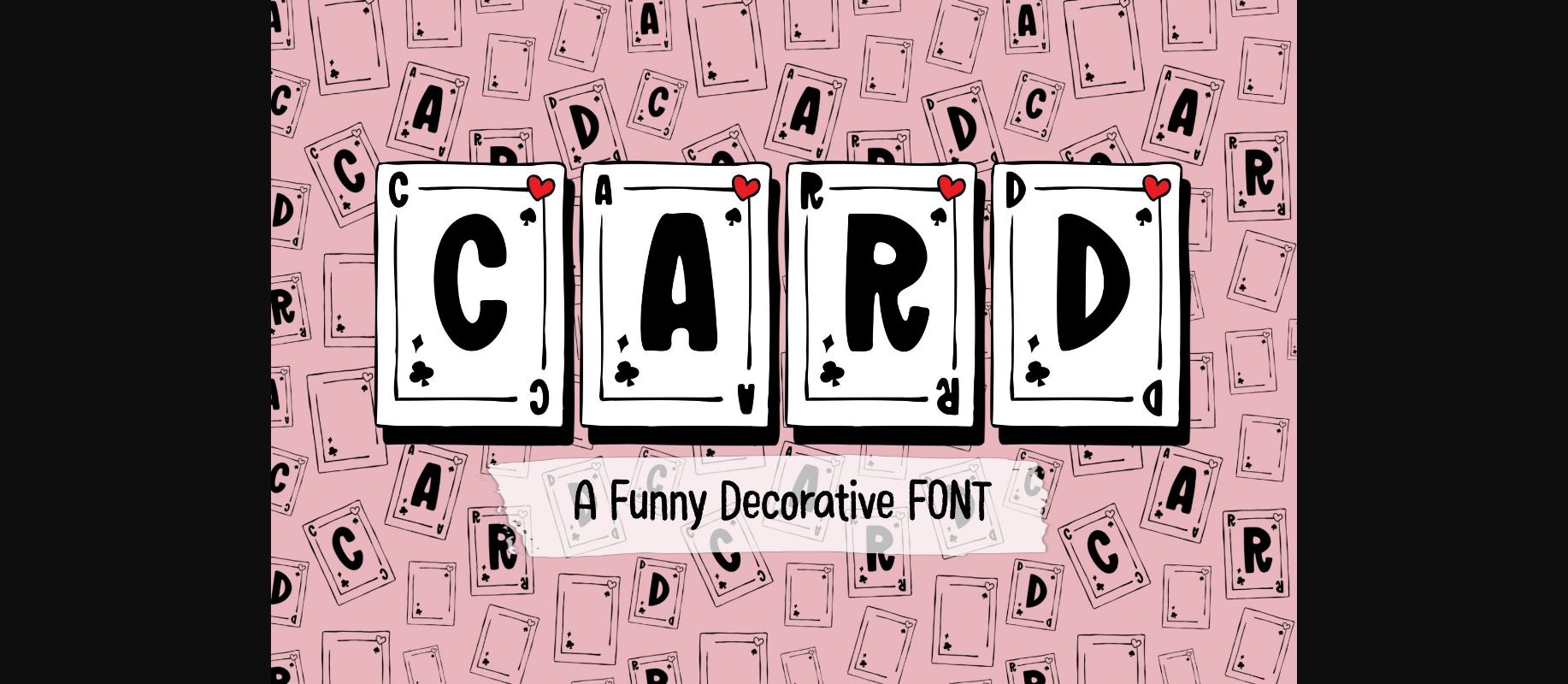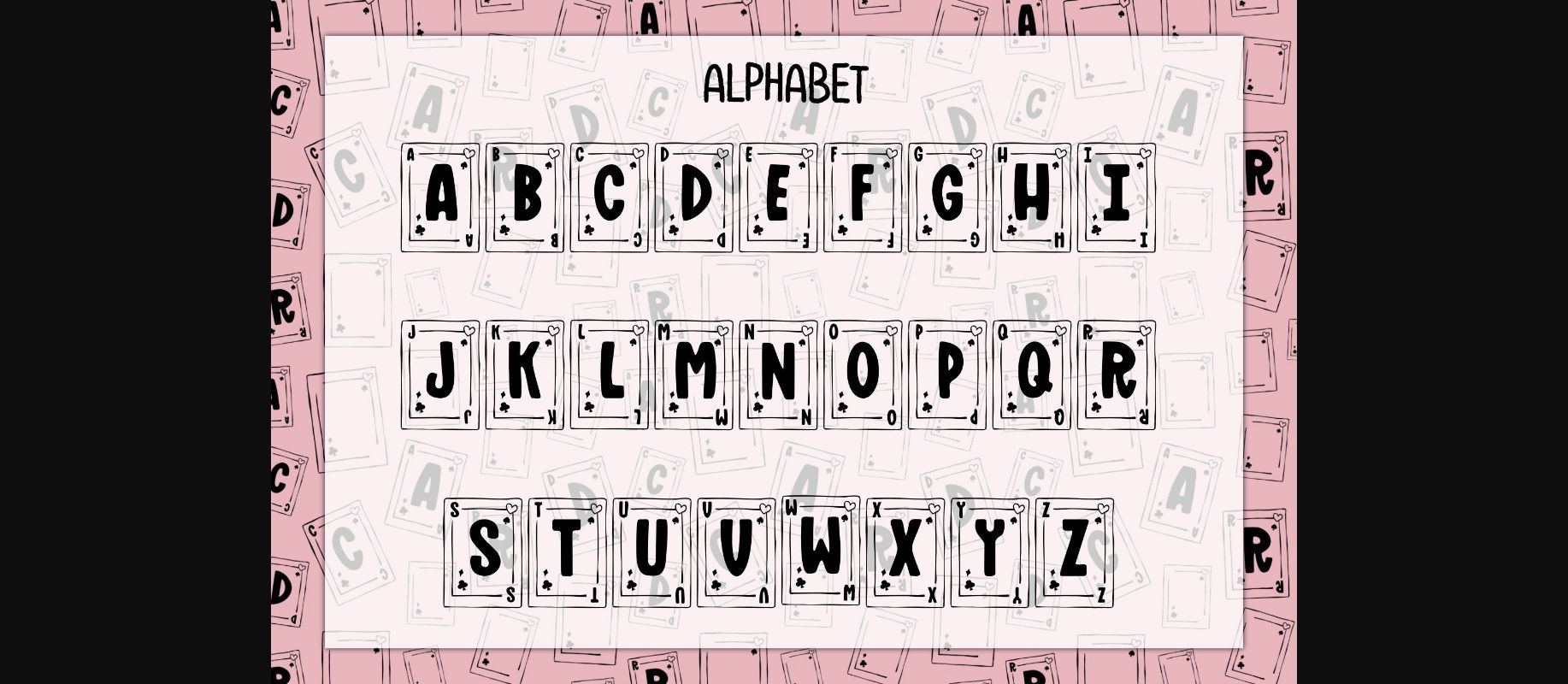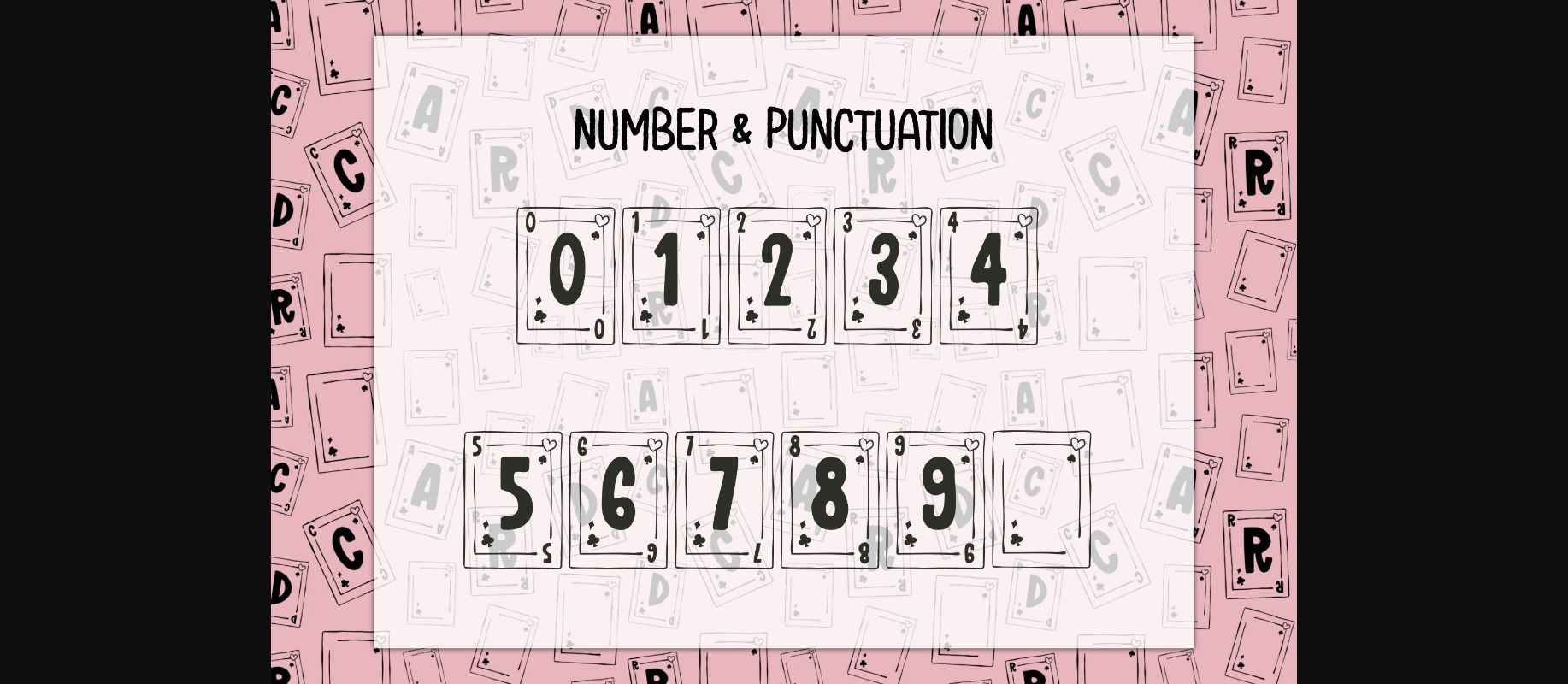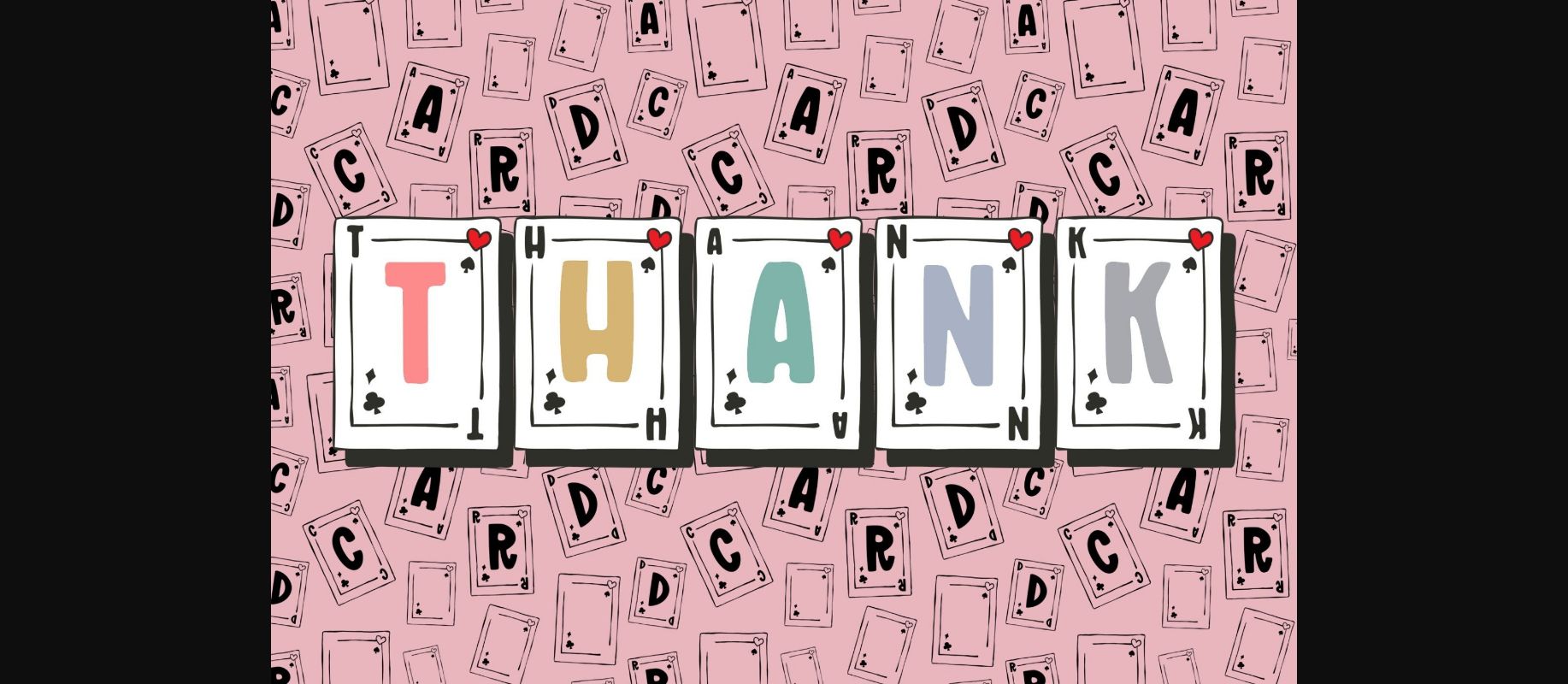
Card Font
About Card Font
Card is a Decorative font. This font is the perfect fit for all of your logos, branding, social media, crafty DIY projects, and much more!